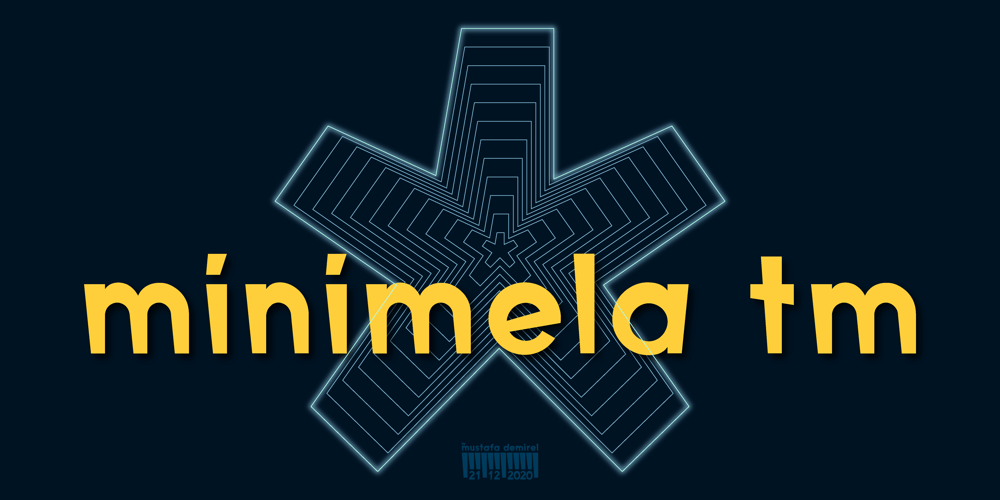
Minimela Tm
Minimela Tm font
Minimela Tm Font Family was designed by Mustafa Demirel and published by Mustafa Demirel. Minimela Tm contains 1 styles and family package options. “It is hard to believe, but they won’t be able to give up on us”The story of this font has started with a little suitcase actually. These characters were trying to do something for minimela kitchen which it named.After that, they looked that they was wanting to be that font beautiful writings written with it, belonging to it, special to it and reminding it to everybody. These cute monsters that have shaped themselves were a piece of a whole, of a little whole. They were totally believing to beautiful and long ways that have being waited them. They have given a sincere promise they will continue with little steps on that ways.”It is hard to believe, but they won’t be able to give up on us” while telling this, we were totally talking about that